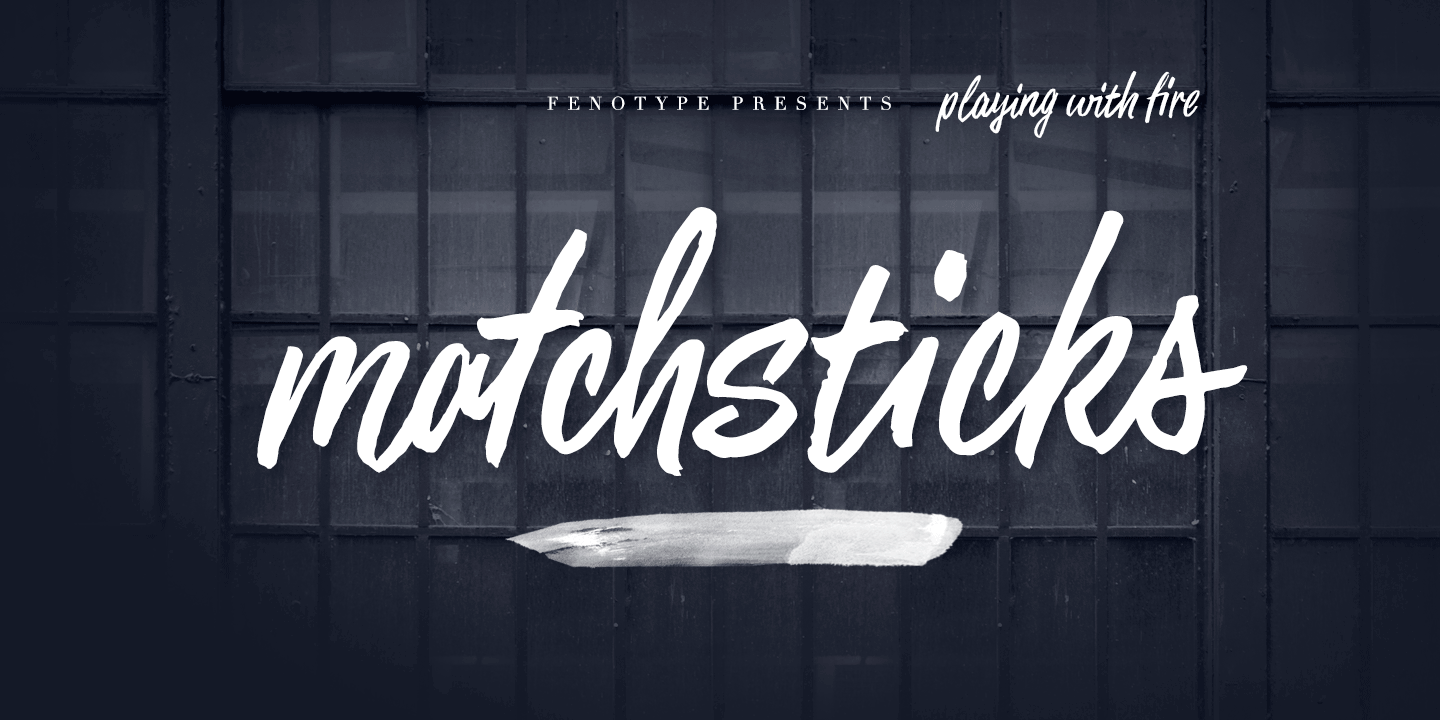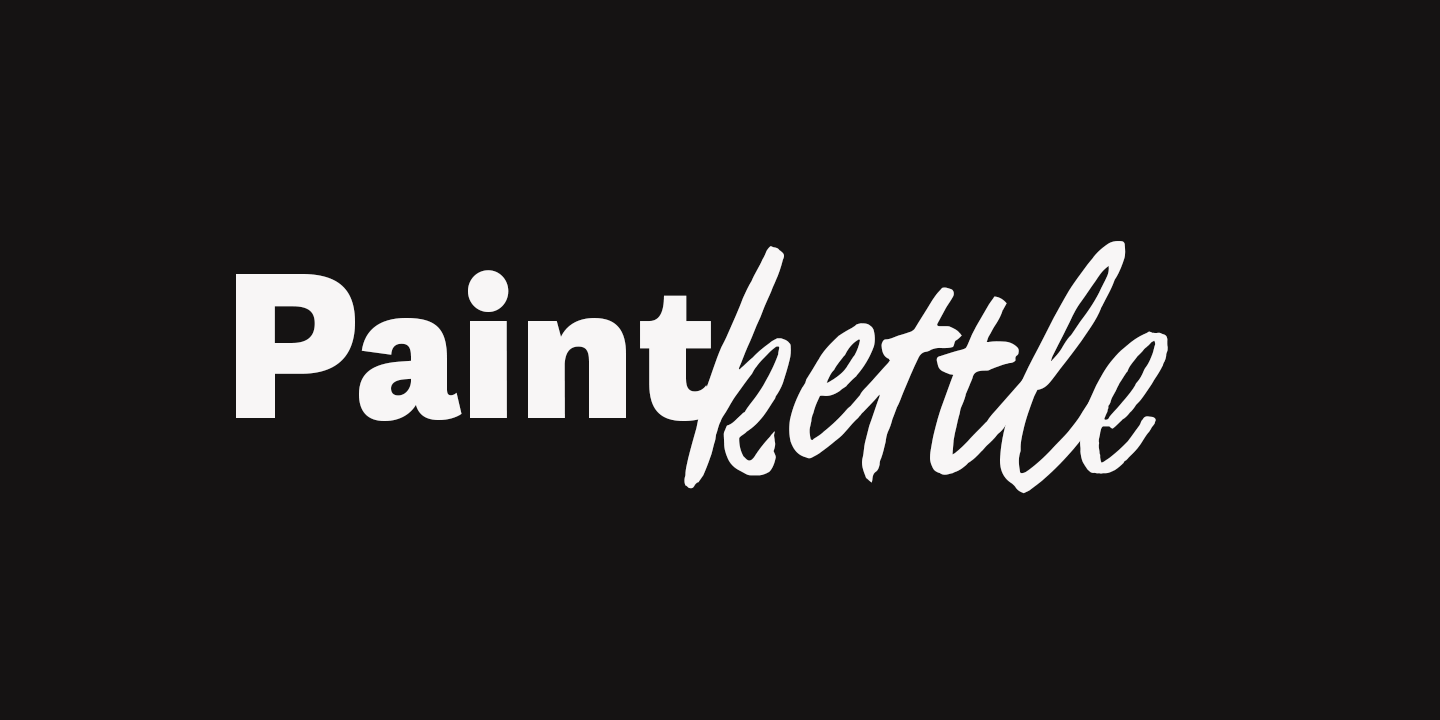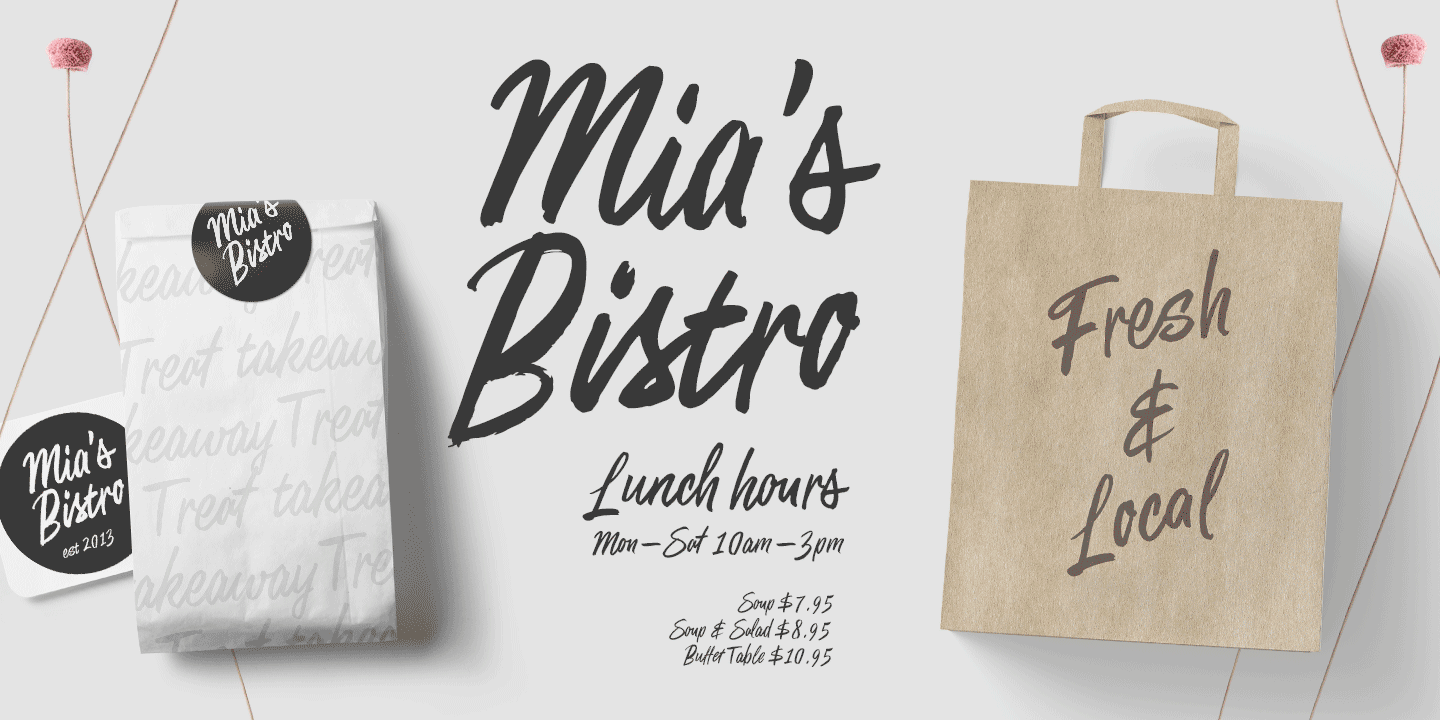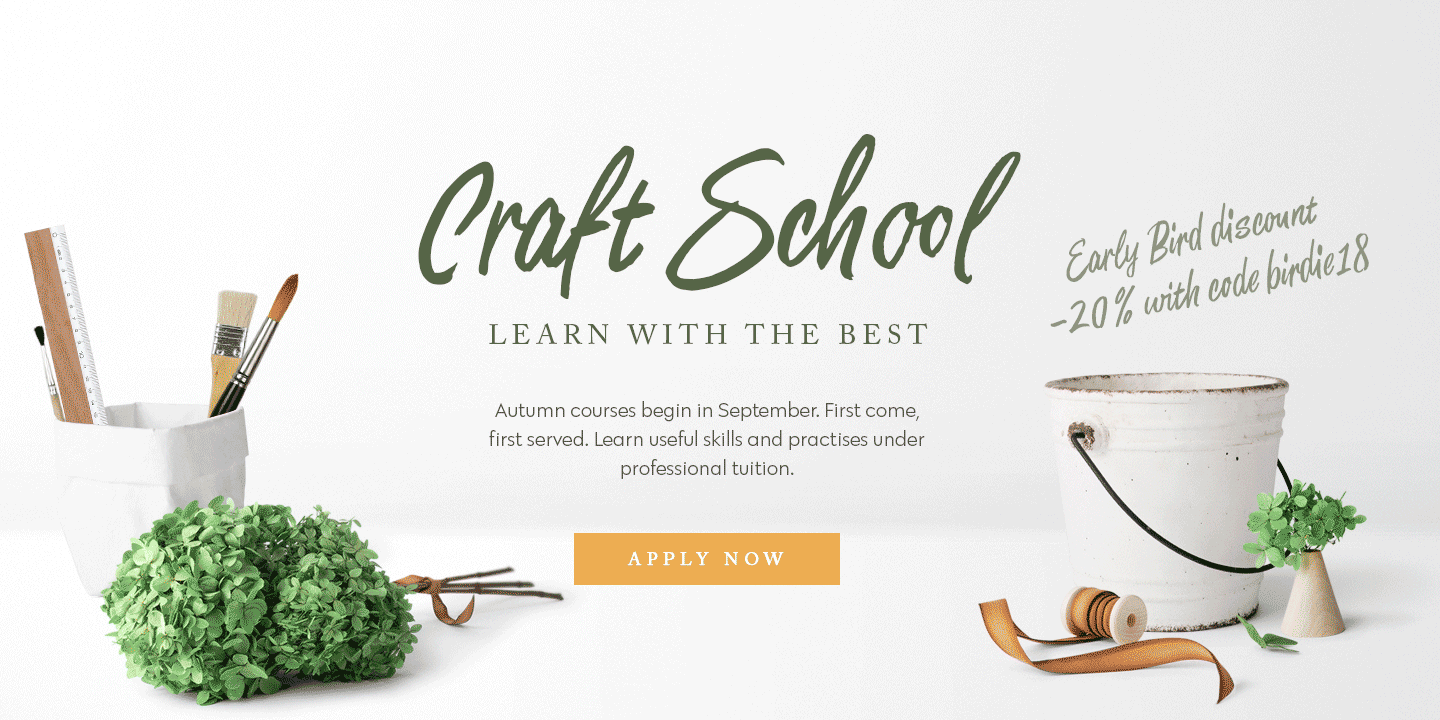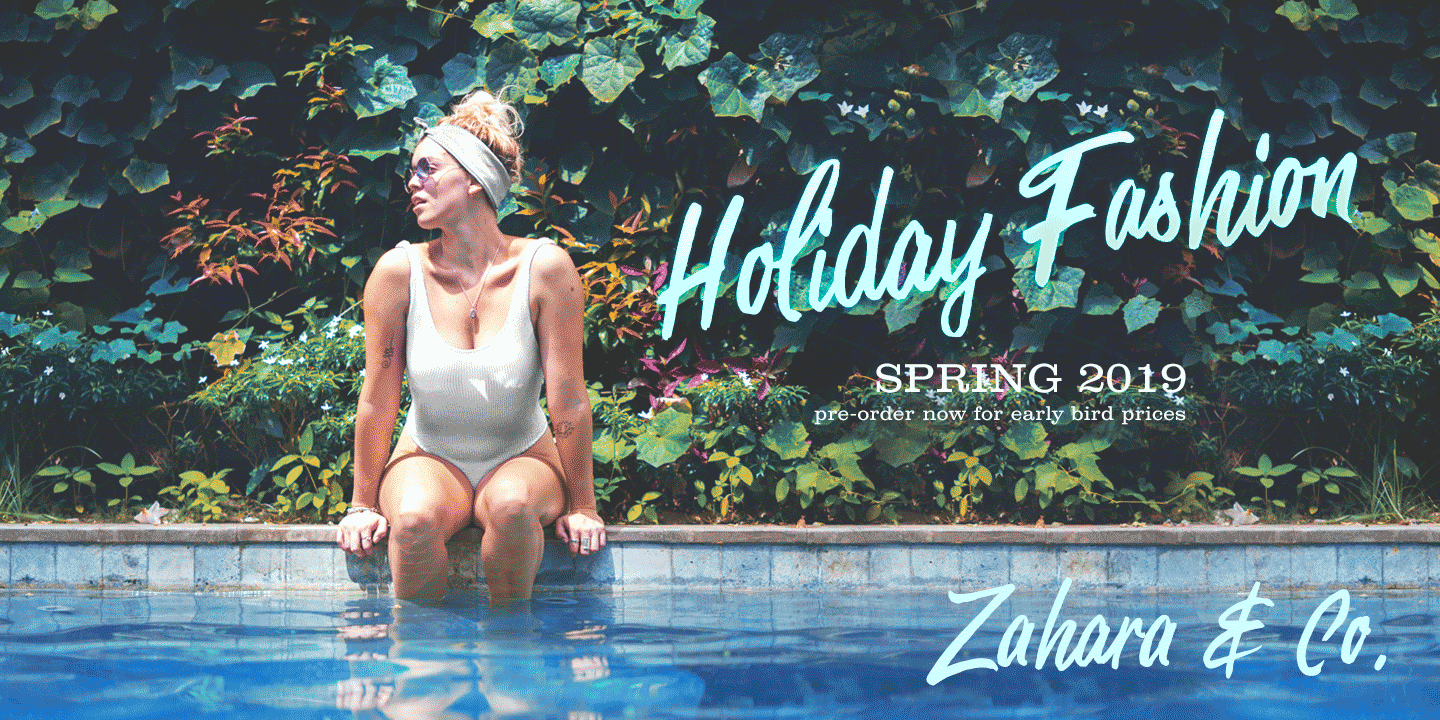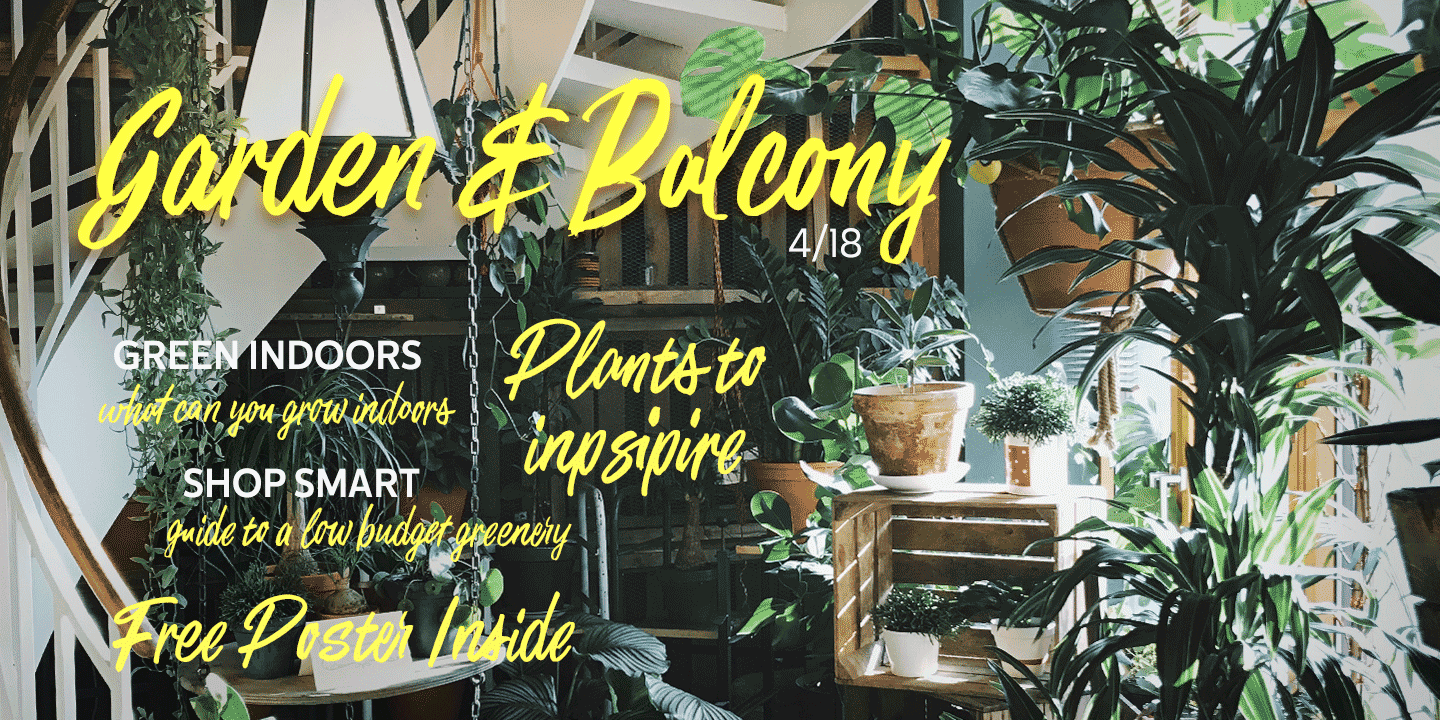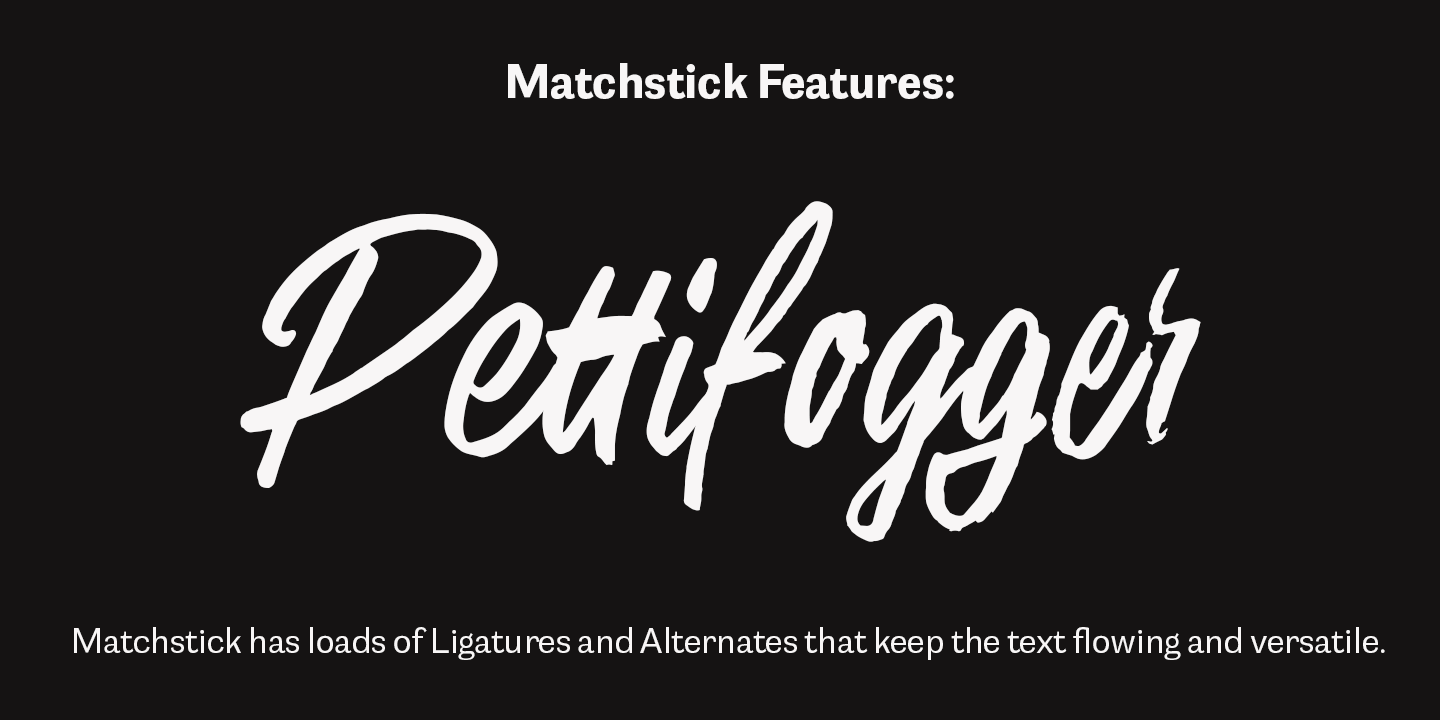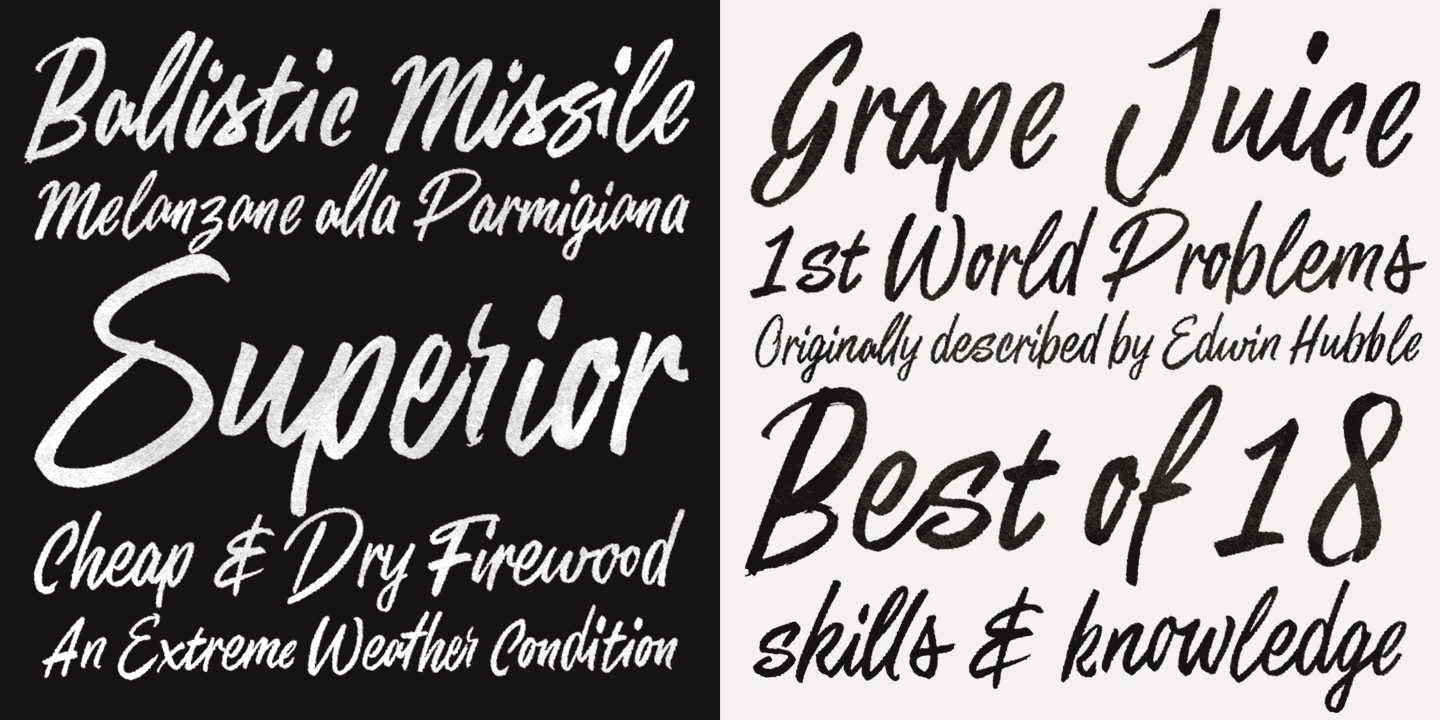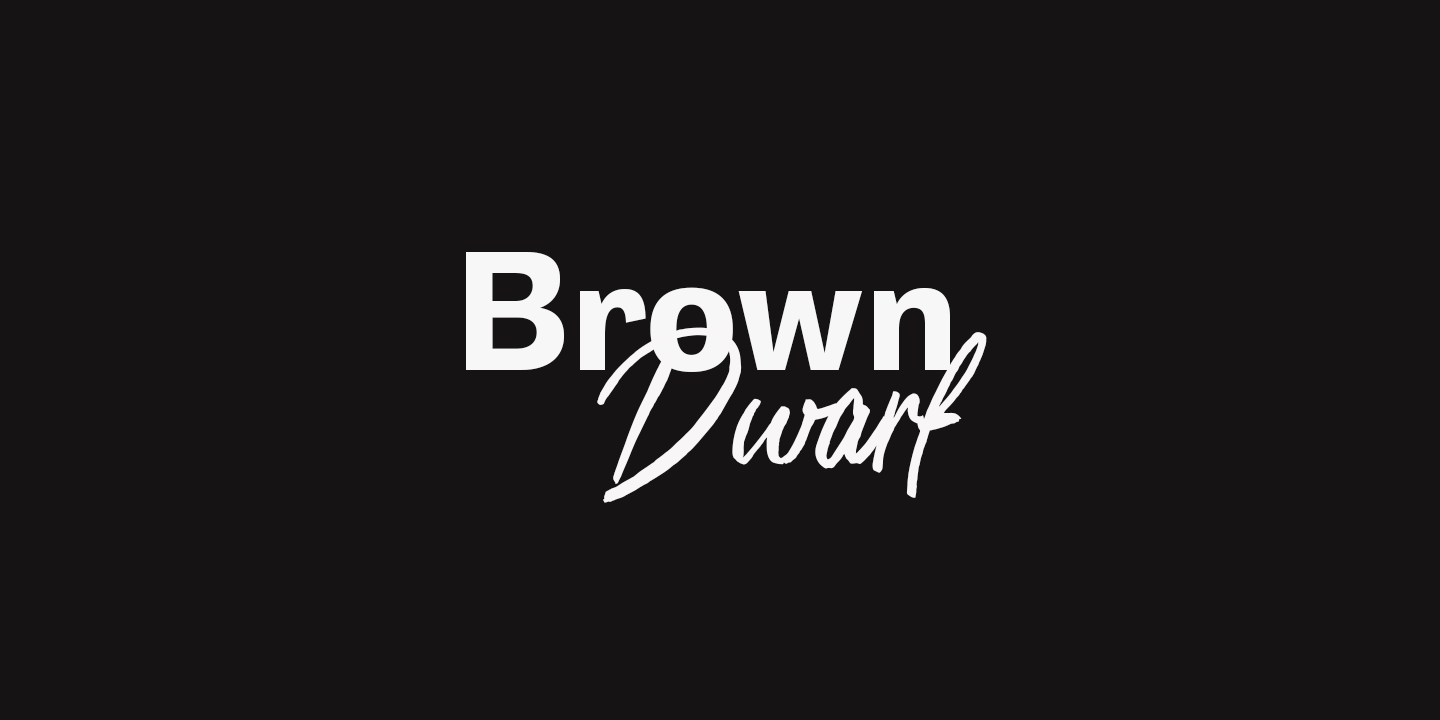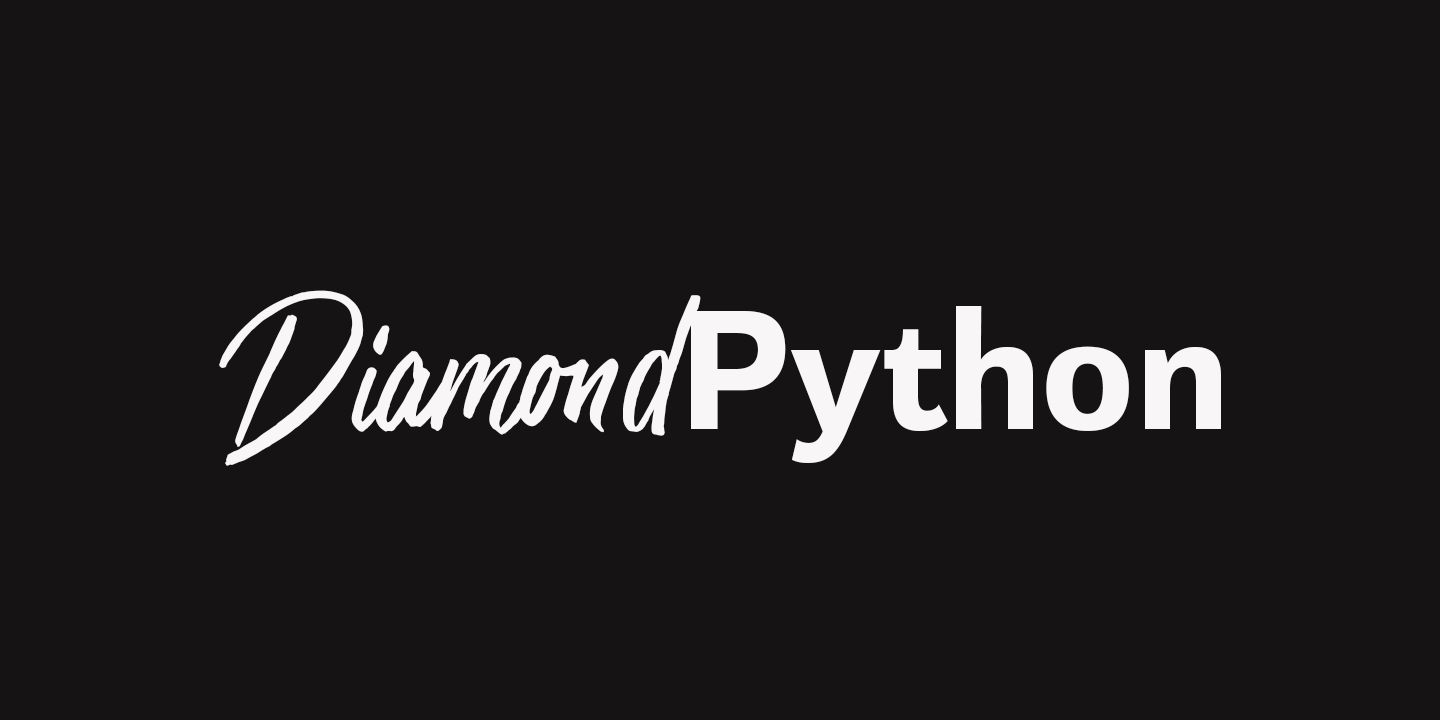
Matchstick
Font Family by Fenotype
Matchstick is a hand drawn brush script. Matchstick is packed with loads of ligatures and alternates that help simulate a swift look of a handwriting. This feature is set in Standard Ligatures and it is normally automatically on.
Matchstick is a great display brush to be used in writing headlines, packaging, posters or as a logotype. Matchstick works great when paired with strong sans serifs.